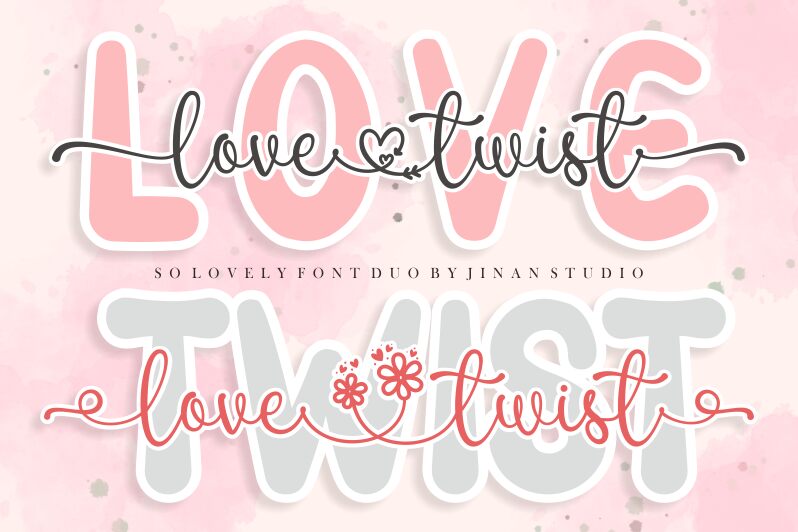
Love Twist Sans
Love Twist Sans font by Ainun Jinan is a bold cartoon display typeface inspired by the iconic Disney logo. Its playful and casual appearance, combined with its bold letters, promotes approachability in every design. The letter edges have a non-sharp rounded shape consistent throughout the typeface for better uniformity.
Use Love Twist Sans in fun branding projects, posters, party invitations, greeting cards, packaging designs for kids’ products like toys or candy. Moreover, books typography and all other child-related graphics will undoubtedly stand out when using this free font!